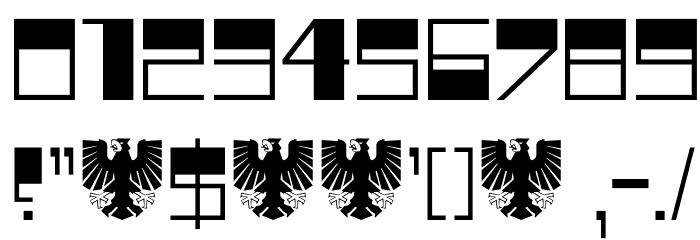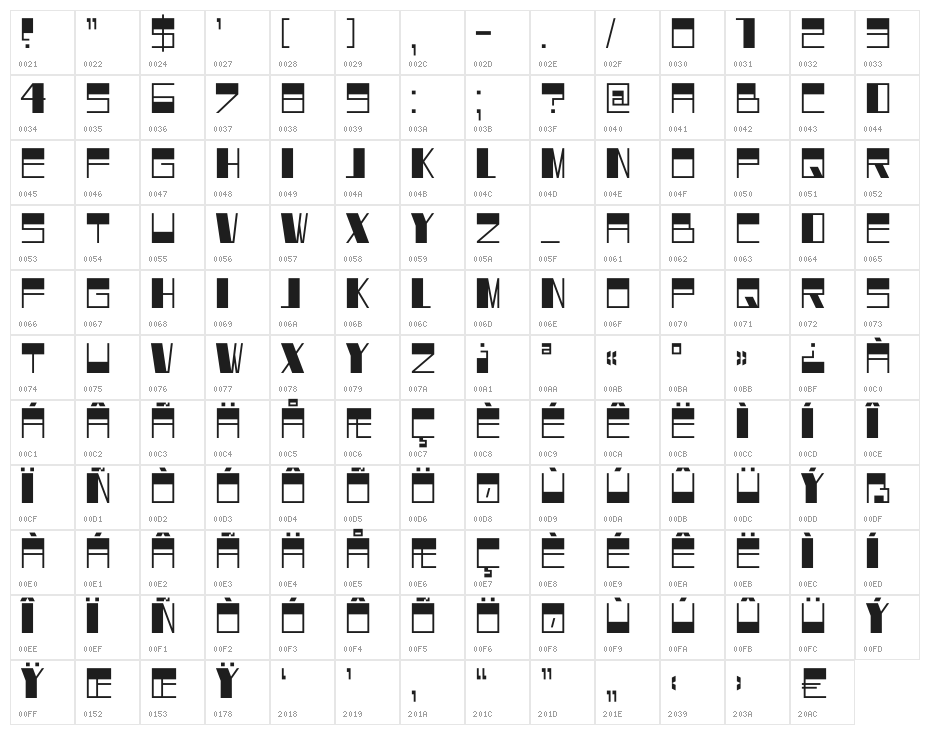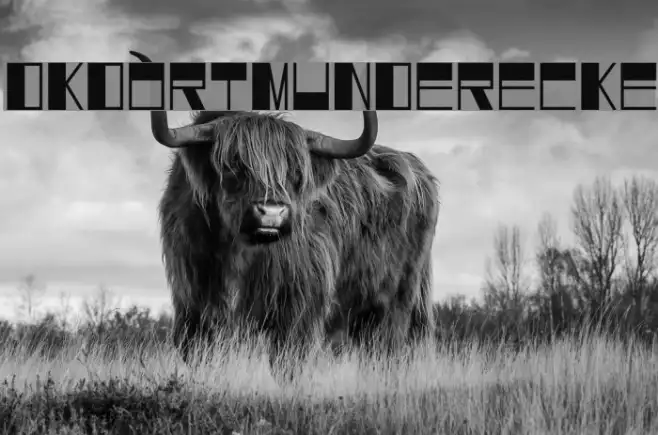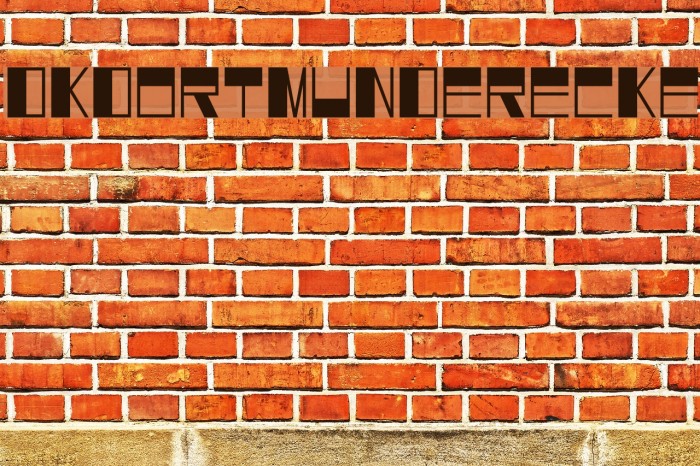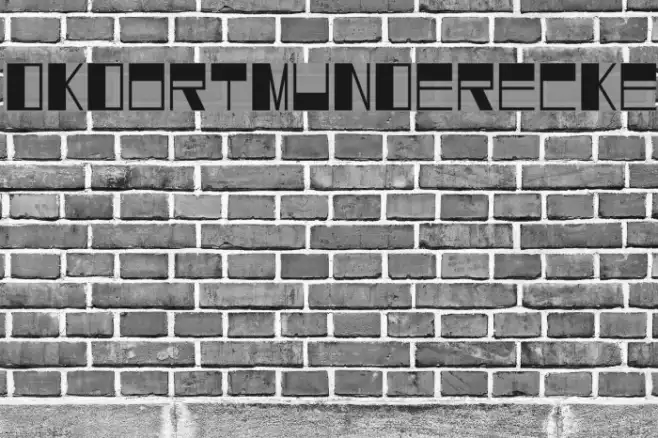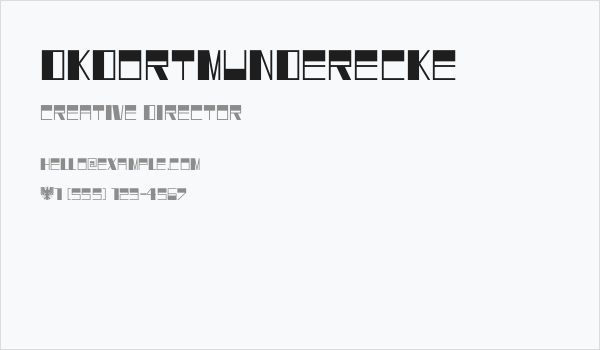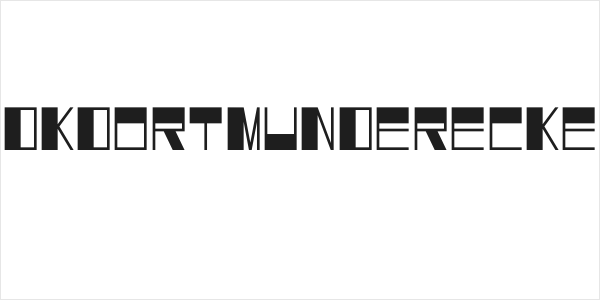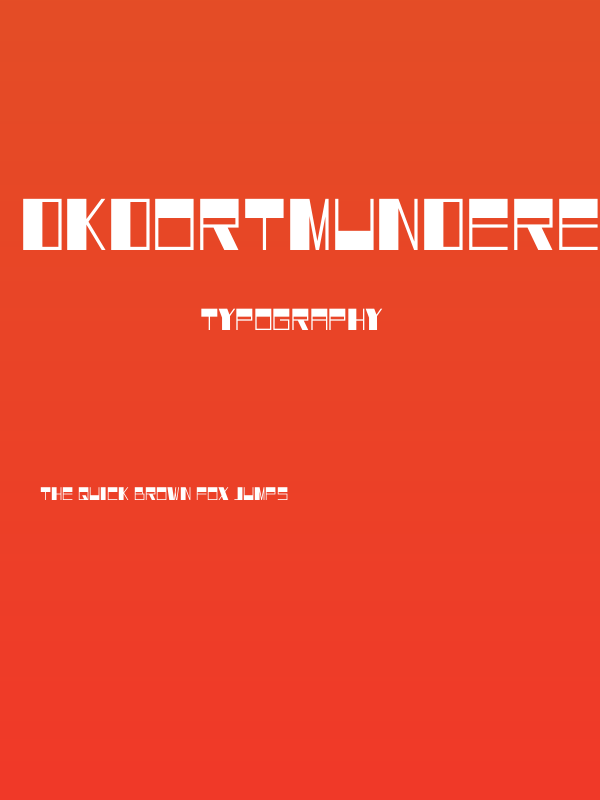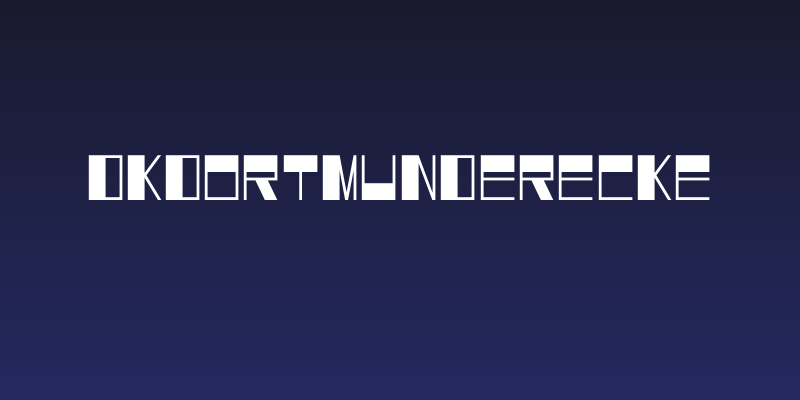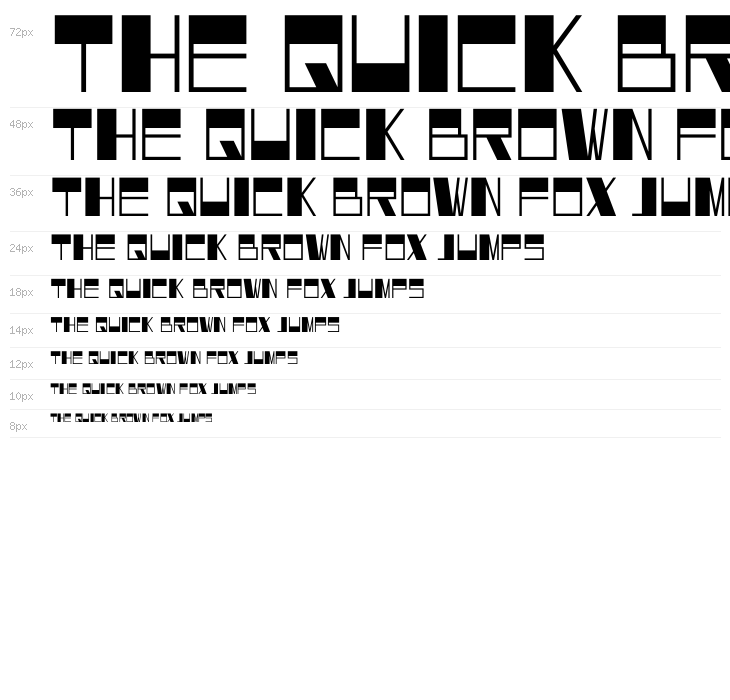
DKDortmunderEcke Font
DKDortmunderEcke Description
This font features a bold, geometric design with a strong emphasis on angular shapes and sharp edges. The uppercase letters are characterized by their blocky, industrial appearance, while the lowercase letters maintain a consistent style with slightly more variation in form. The numerals are equally bold and geometric, fitting seamlessly with the overall aesthetic. Special characters are included, maintaining the same angular and bold style. The font's design is reminiscent of industrial or architectural themes, making it suitable for projects that require a strong, impactful visual presence.
| Overall Style | Modern, Industrial |
| Proposed Projects | Ideal for branding, posters, signage, and any project requiring a strong, industrial look. |